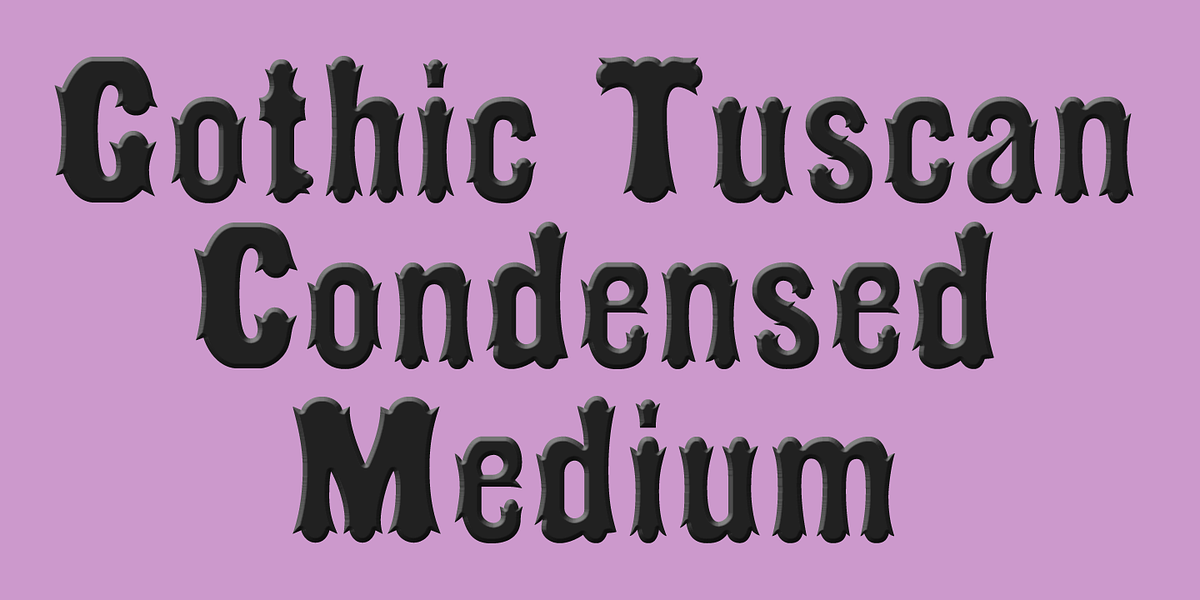
Gothic Tuscan Condensed
This font is a stylized display typeface evocative of 19th-century Western design. It features ornate detailing and a bold presence, making it suitable for applications like posters, headlines, and branding where a touch of vintage charm is desired.